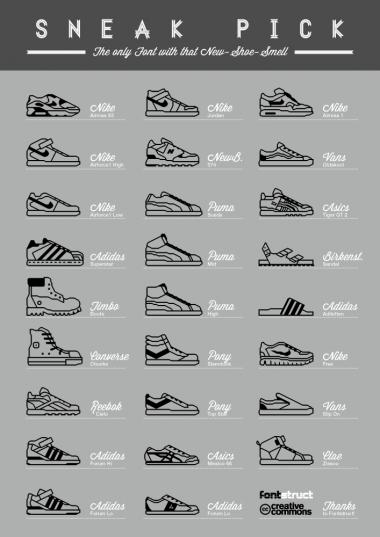
SneakPick
A selection of the legends in classy-footwear. Feel free to clone and remix
SNEAK PICK
the only font with that new-shoe-smell
the name of the sneaker on the bottom of the middle-line is "le coq sportif" not "forum low".
Why?! It's just a dingbat font
, but with shoes.
Cool, really creative. First time I see a shoes dingbat font...
@cablecomputer: Had to do something about my sneaker-obsession, so instead of buying them all, i decided to draw them:)
Cool selection of sport footwear. 10/10
Sneaky Sneakers